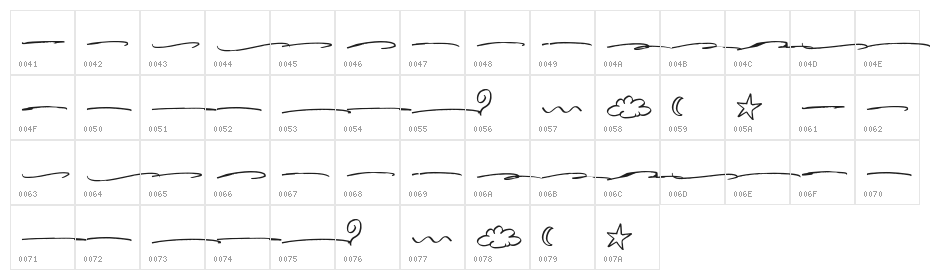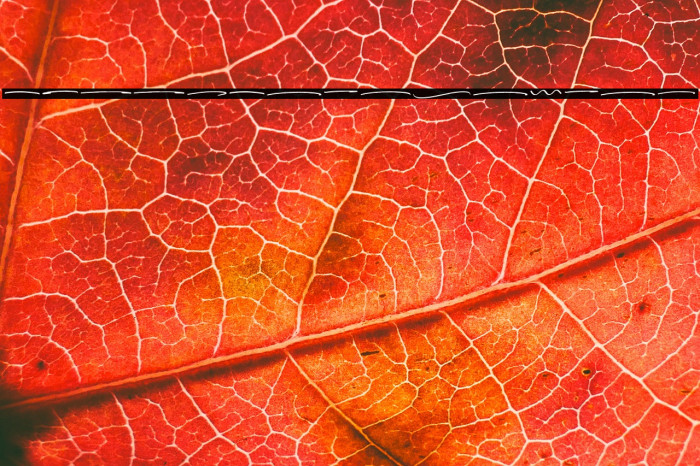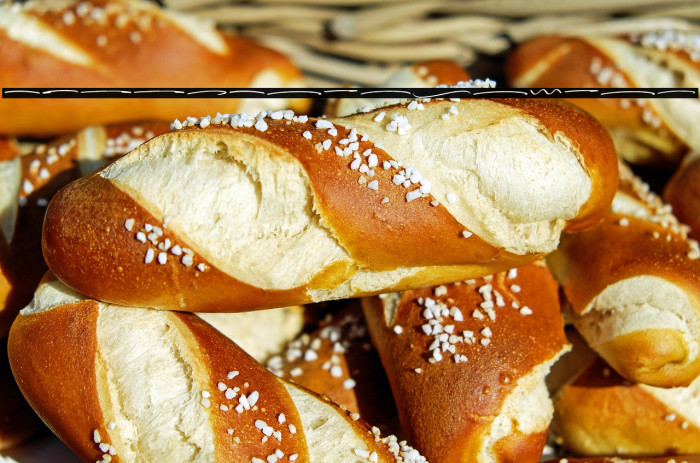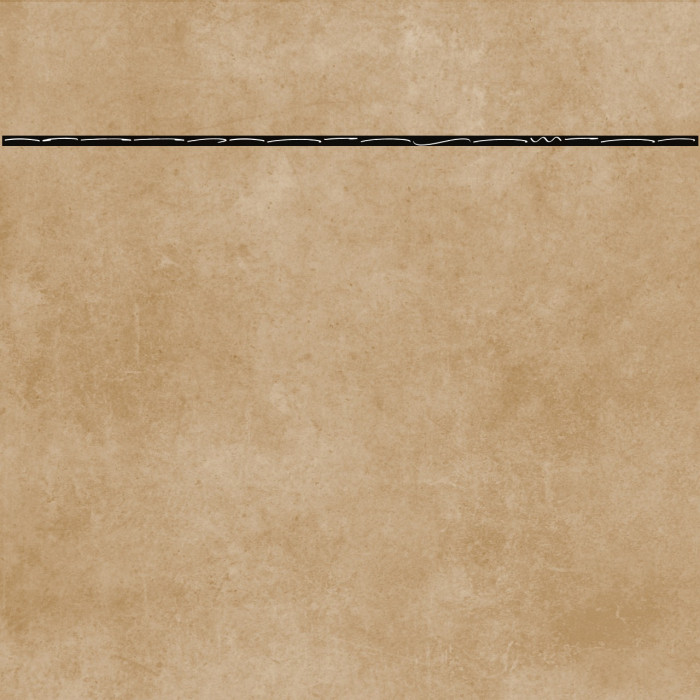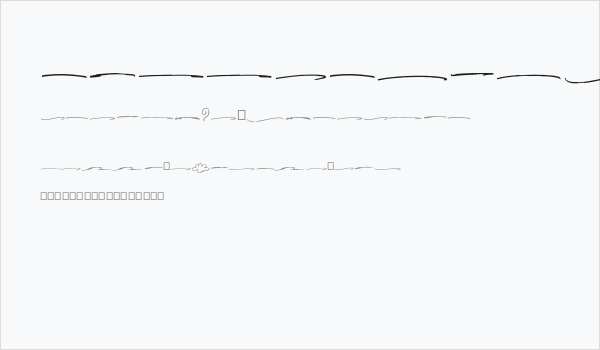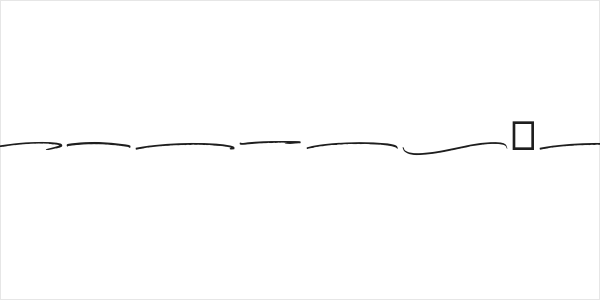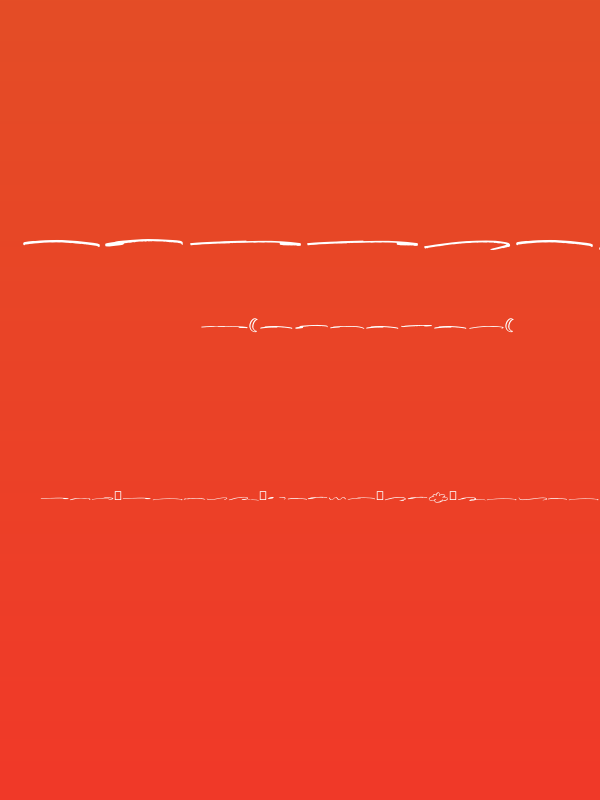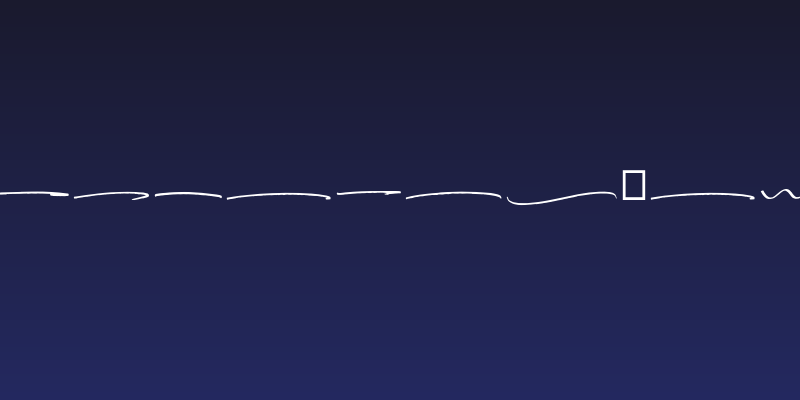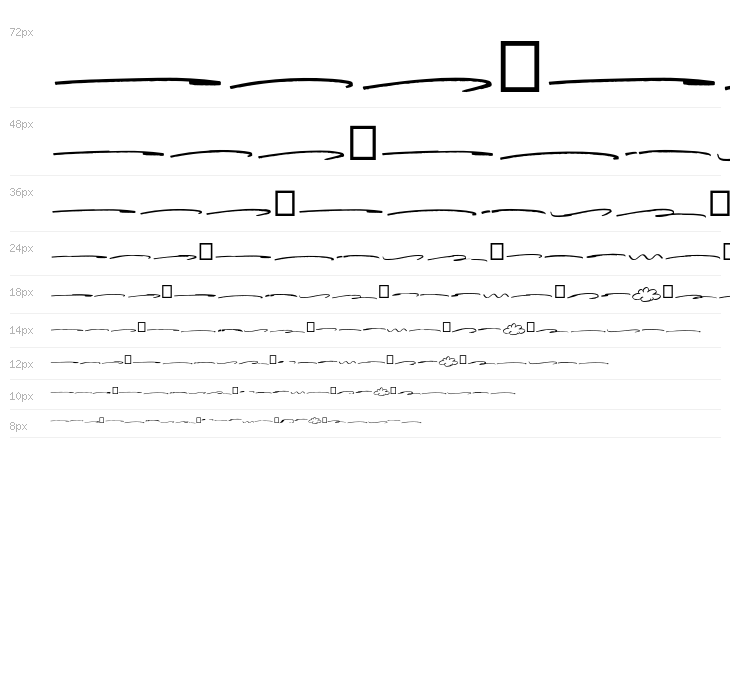
Rottersand Swash Font
Rottersand Swash Description
This font features a whimsical and decorative style, characterized by its flowing, swash-like lines that mimic the appearance of handwritten script. The strokes are fluid and elegant, with a playful touch that includes unique embellishments such as stars and clouds. The overall design conveys a sense of creativity and artistic flair, making it suitable for projects that require a touch of personality and charm. The font's distinct style is both eye-catching and memorable, ideal for adding a decorative element to various design projects.
| Use Case | Logos, Artistic projects, Invitations |
| Proposed Projects | Ideal for greeting cards, invitations, artistic posters, and creative branding projects. |